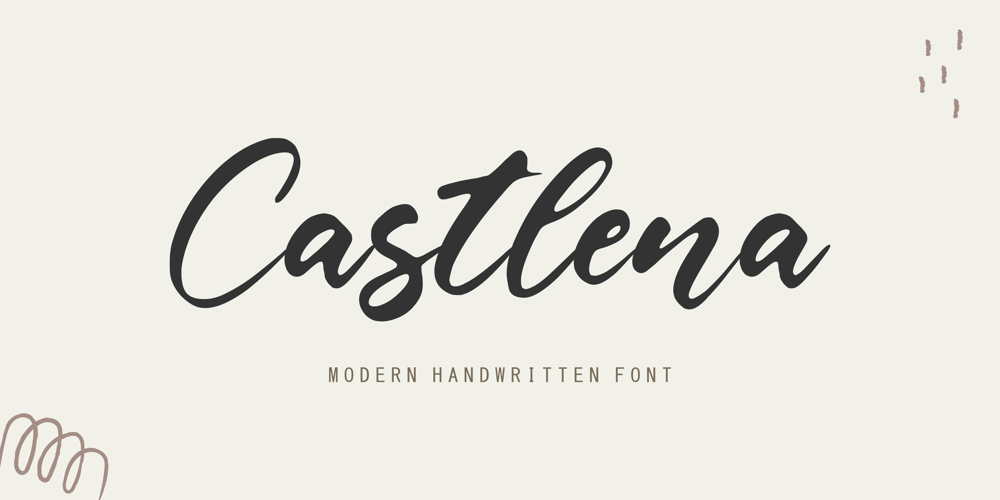
Castlena Font Family was designed by Restu Angga and published by Balpirick. Castlena contains 1 styles and family package options. Castlena is a Modern Handwritten Font.Castlena is a flowing handwritten font, described by an elegant touch, perfect for your favorite projects. Fall in love with its incredibly distinct and timeless style and use it to create spectacular designs!Castlena also multilingual support.Enjoy the font, feel free to comment or feedback, send me PM or email.Thank you!